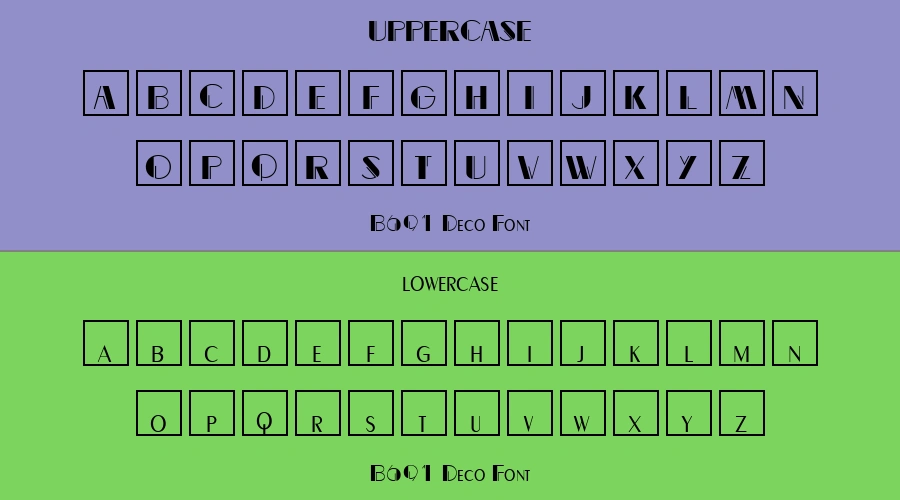
About B691 Deco Font
Designed with precision, B691 Deco Font merges artistic freedom with technical accuracy in every character. This versatility makes it particularly effective for legal documents, where reliability and aesthetic refinement directly impact communication quality. Each letterform demonstrates meticulous craftsmanship.
Technical excellence shines through elements like tapered strokes and terminal forms, enhancing typographic versatility. In image captions settings, B691 Deco Font proves its worth through superior microfilm readability. The thoughtful execution of joint construction and standards alignment ensures professional results.